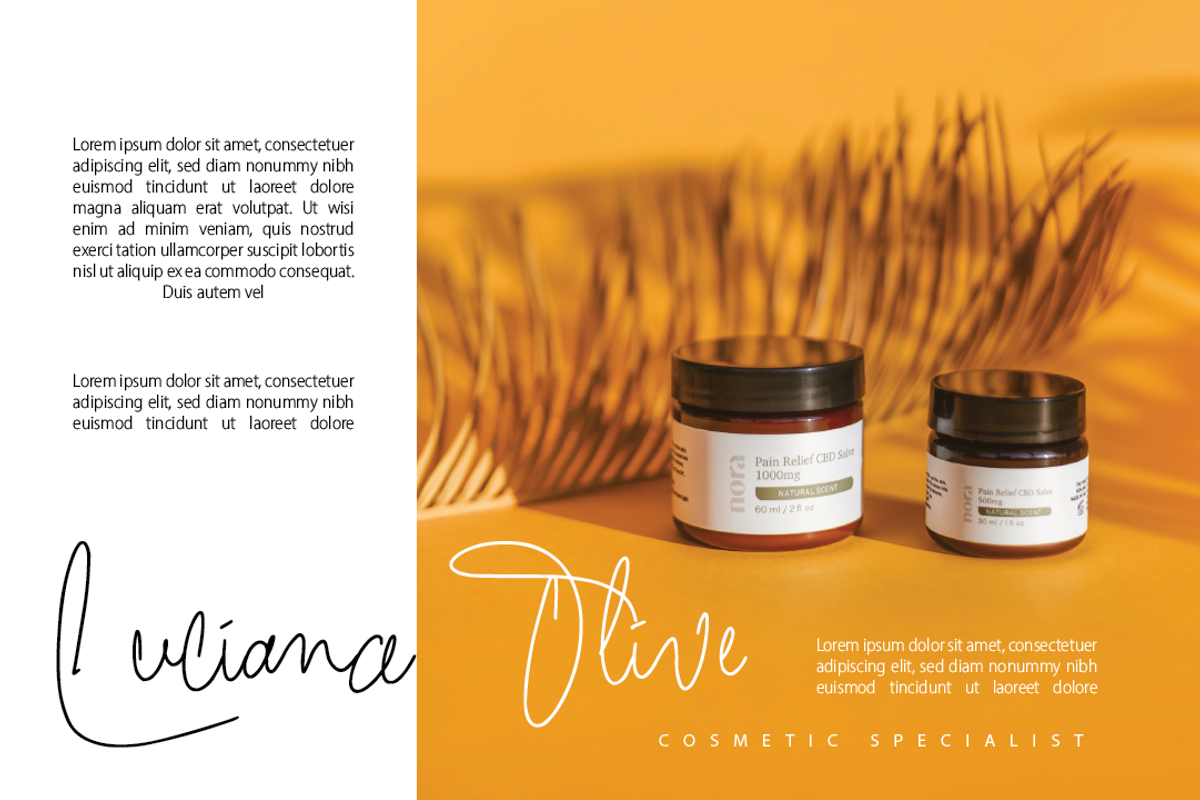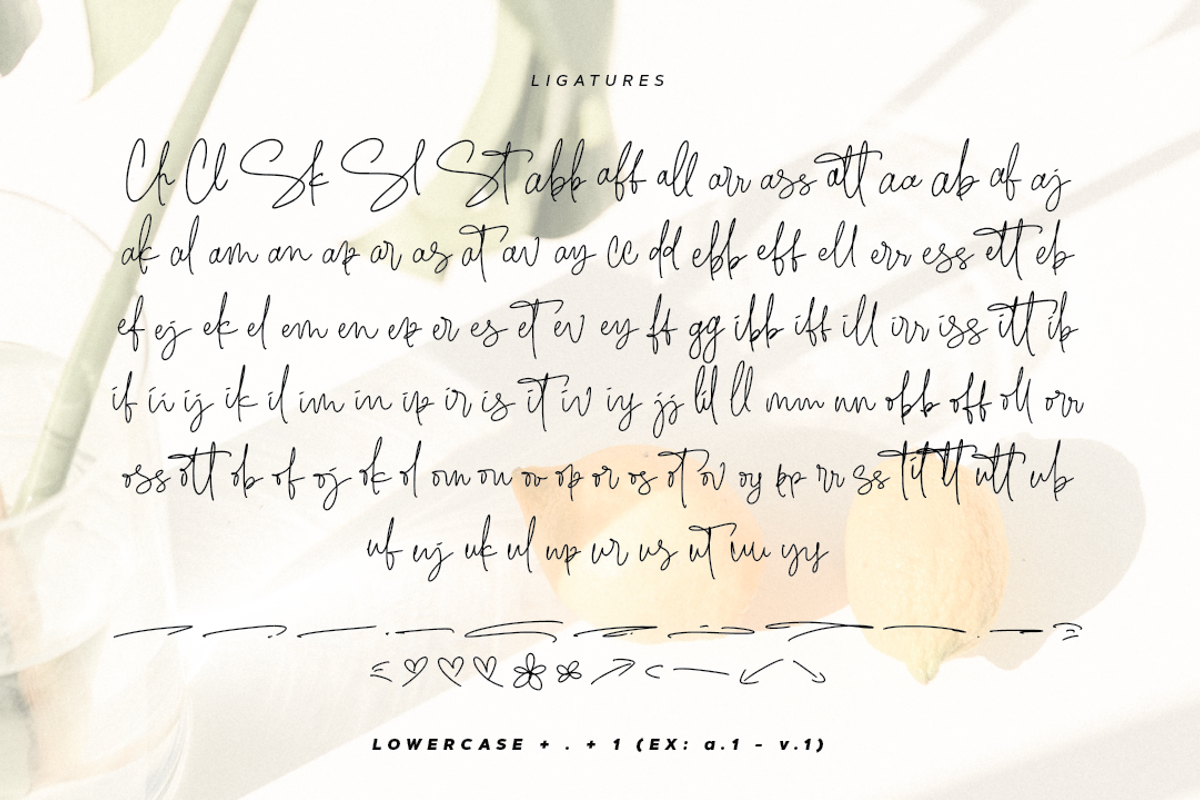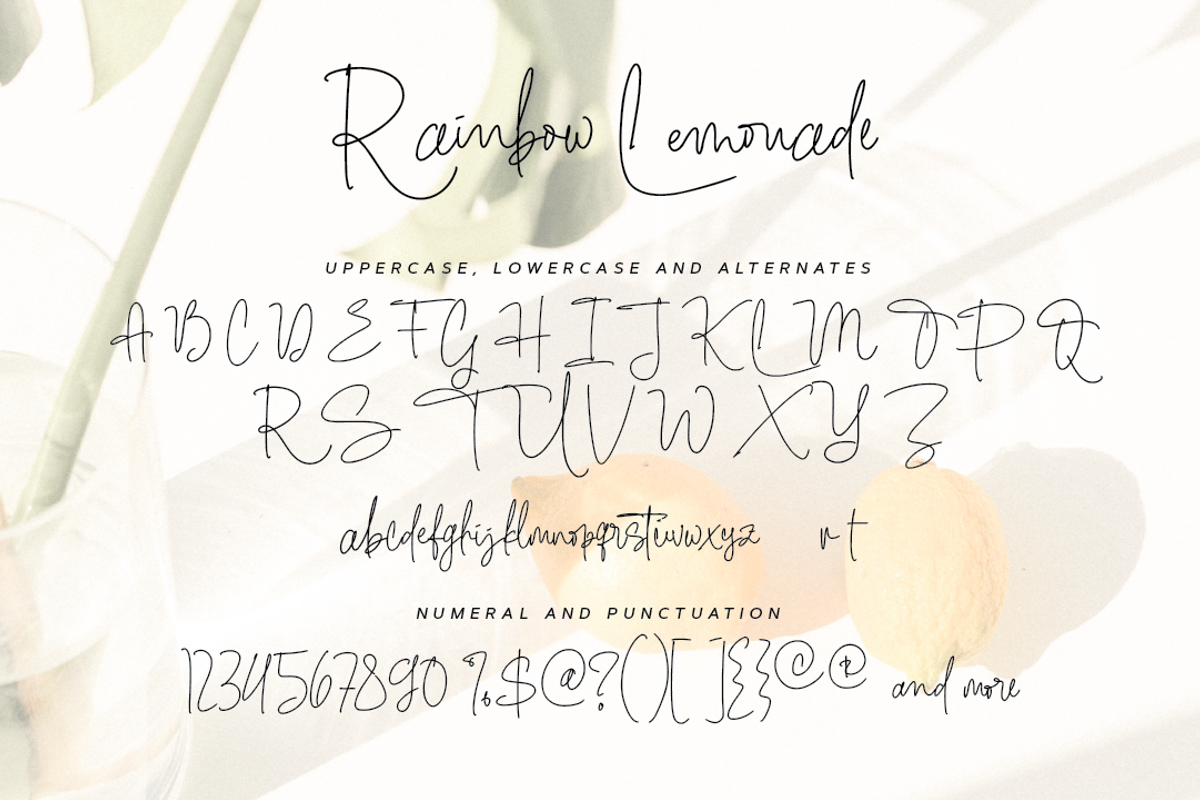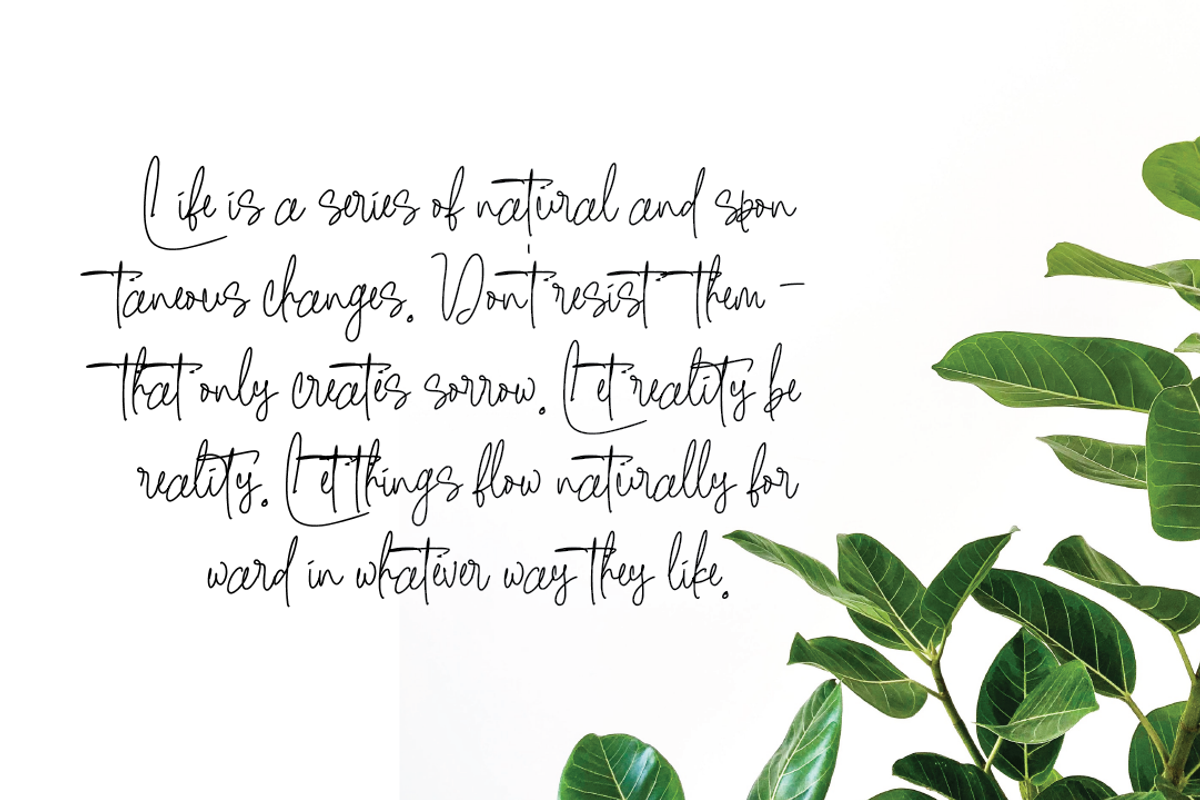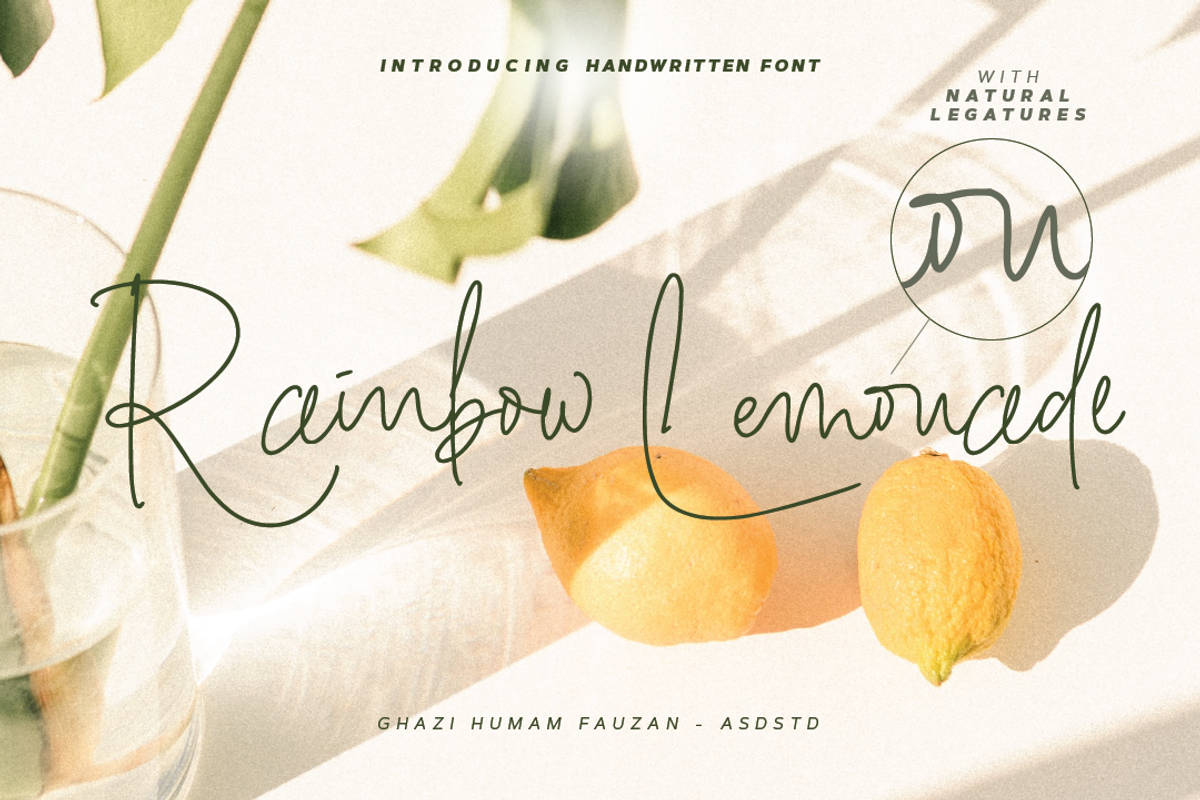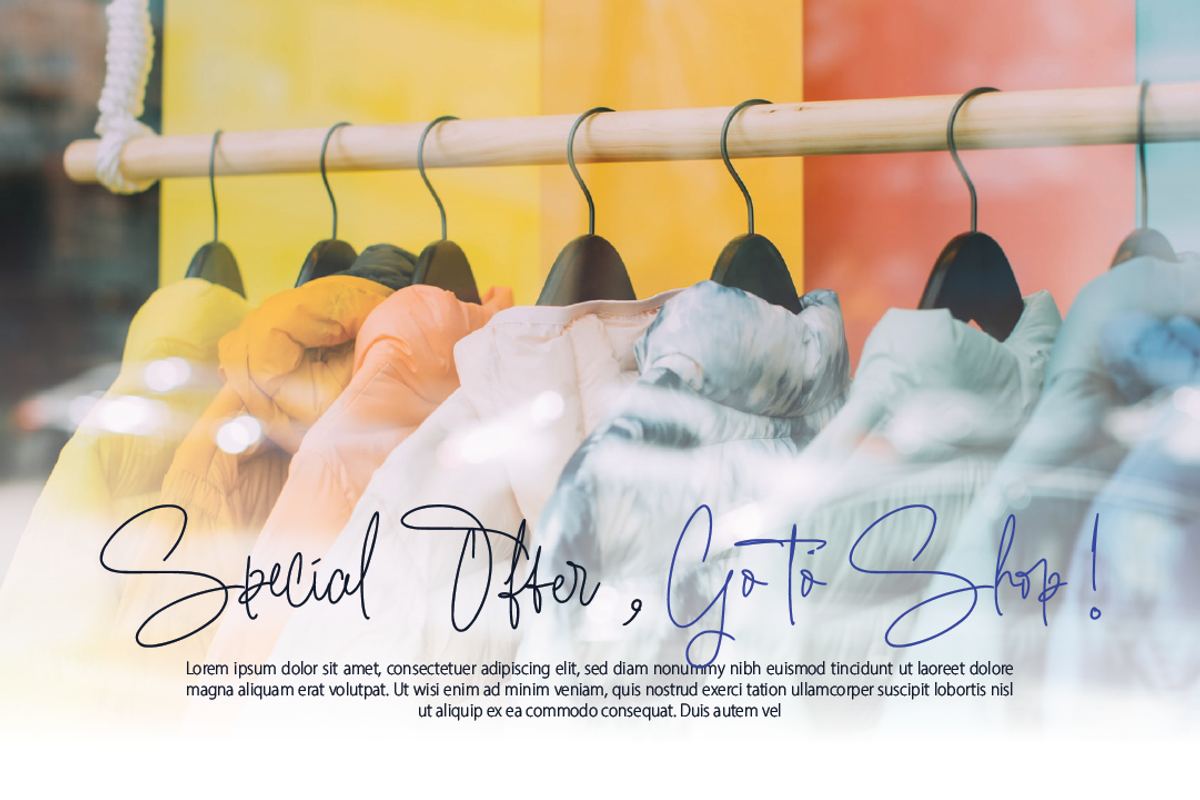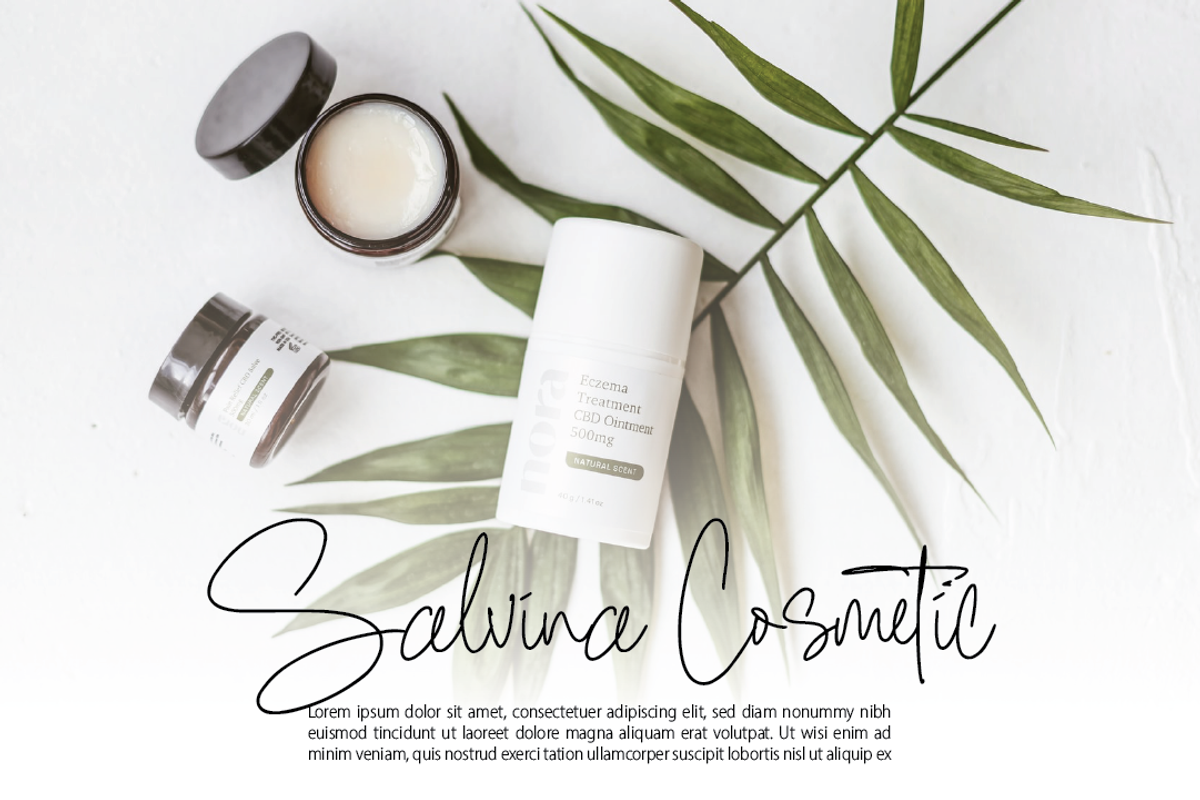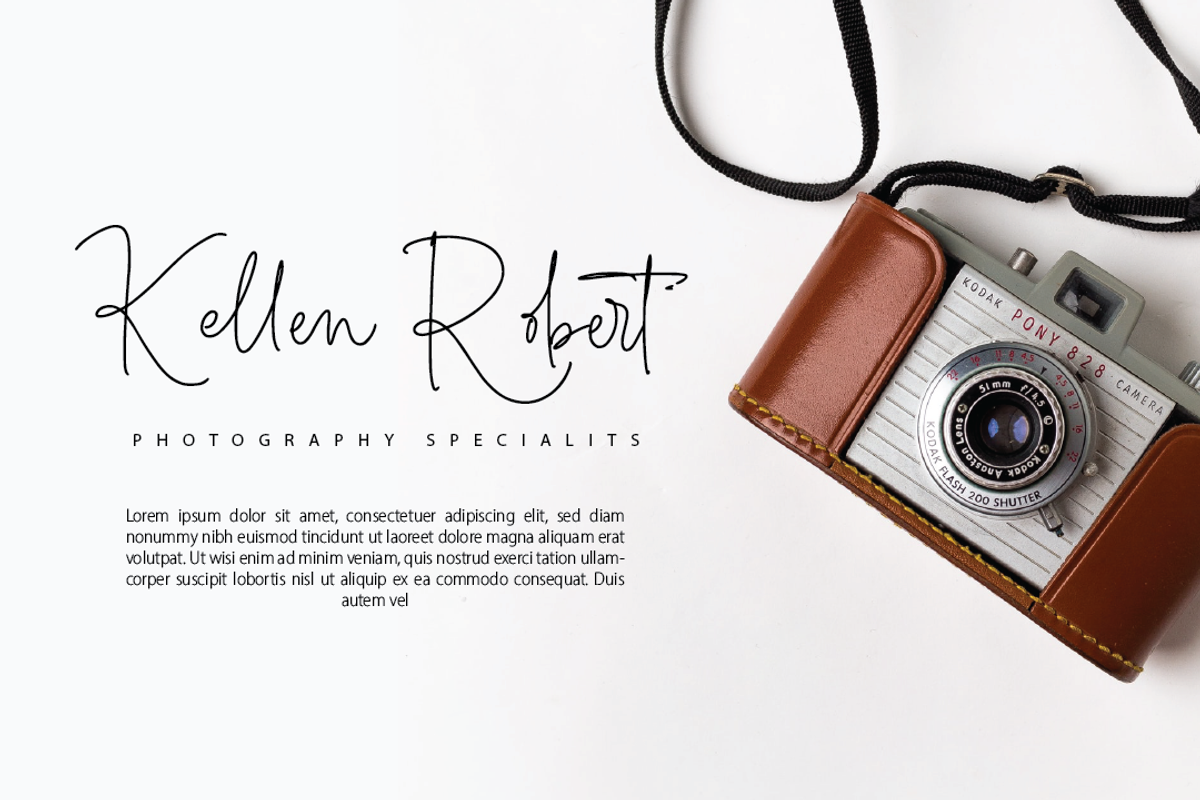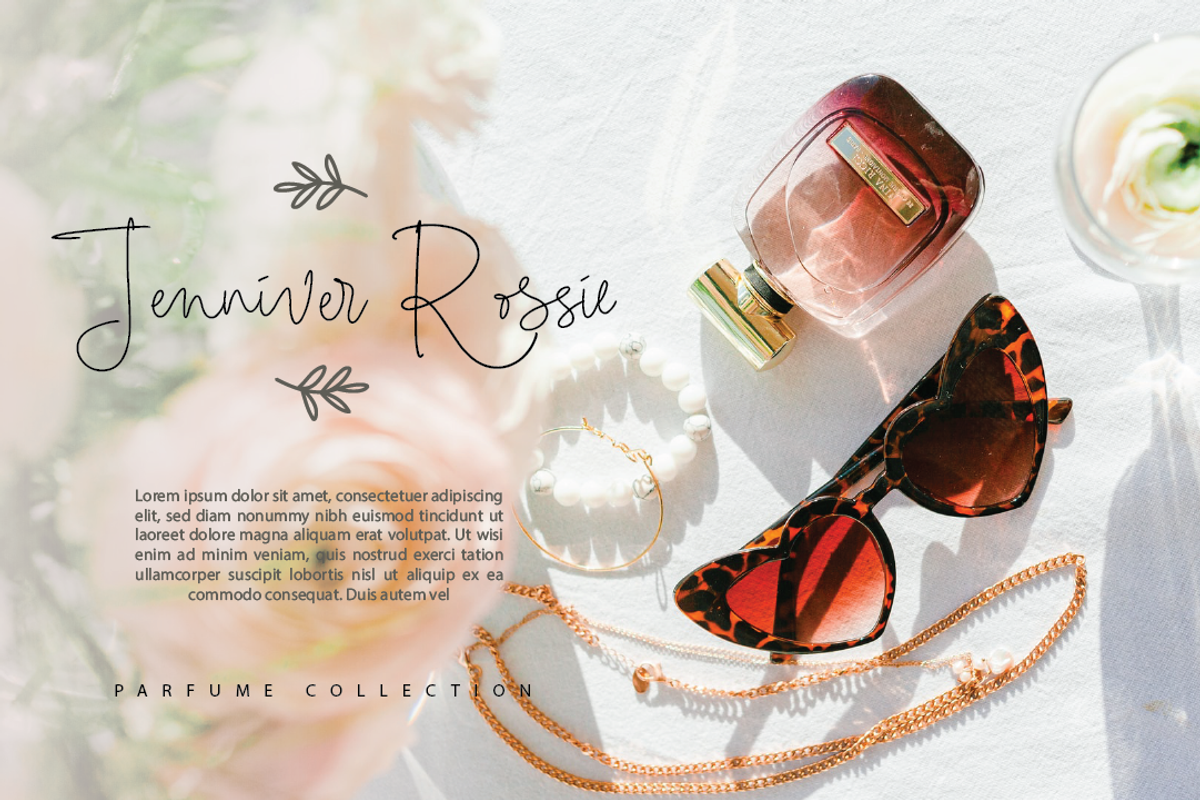
Rainbow Lemonade
Introducing the new font Rainbow Lemonade- Natural Handwritten Font. This font suitable for use in a variety of design fields, such as event advertisements, product promotions, mug design, book titles, activity titles, logos, and others. This font can when paired with serif font types will make your design project more beautiful and perfect.
- Number & punctuations
- Alternates and Ligatures
- Multilingual Accents